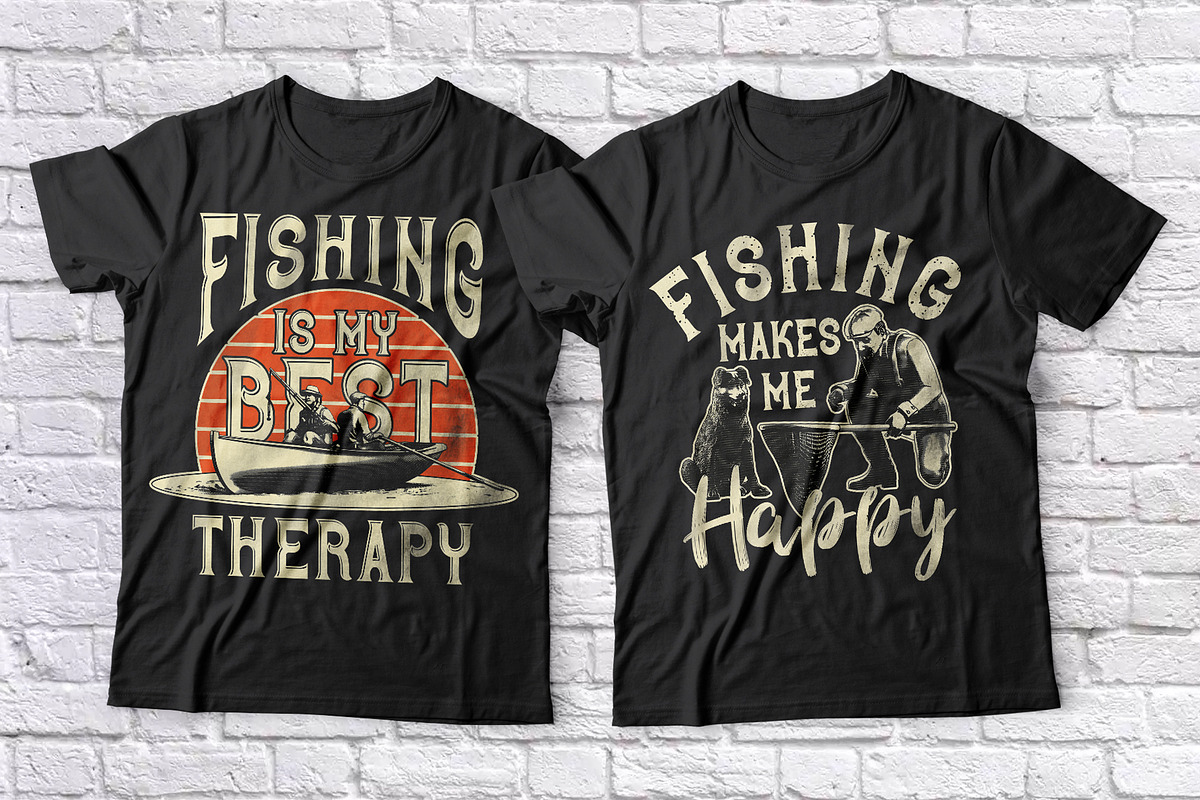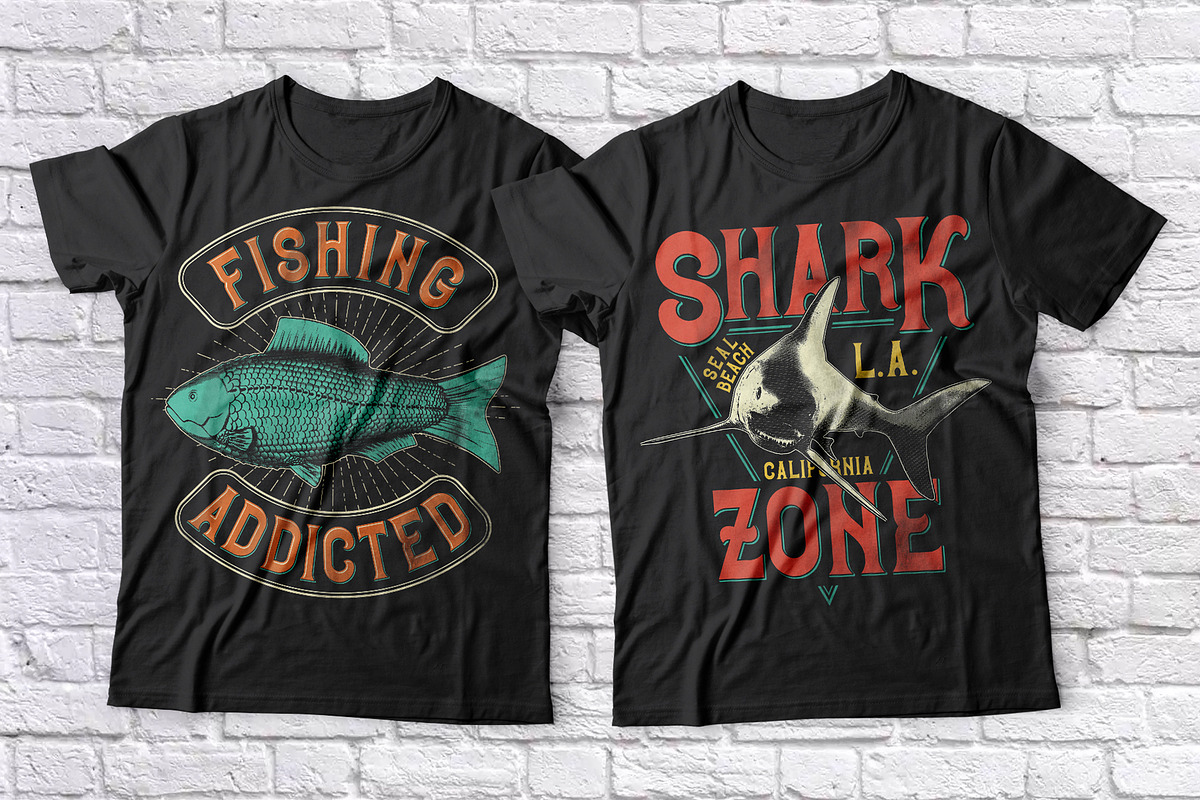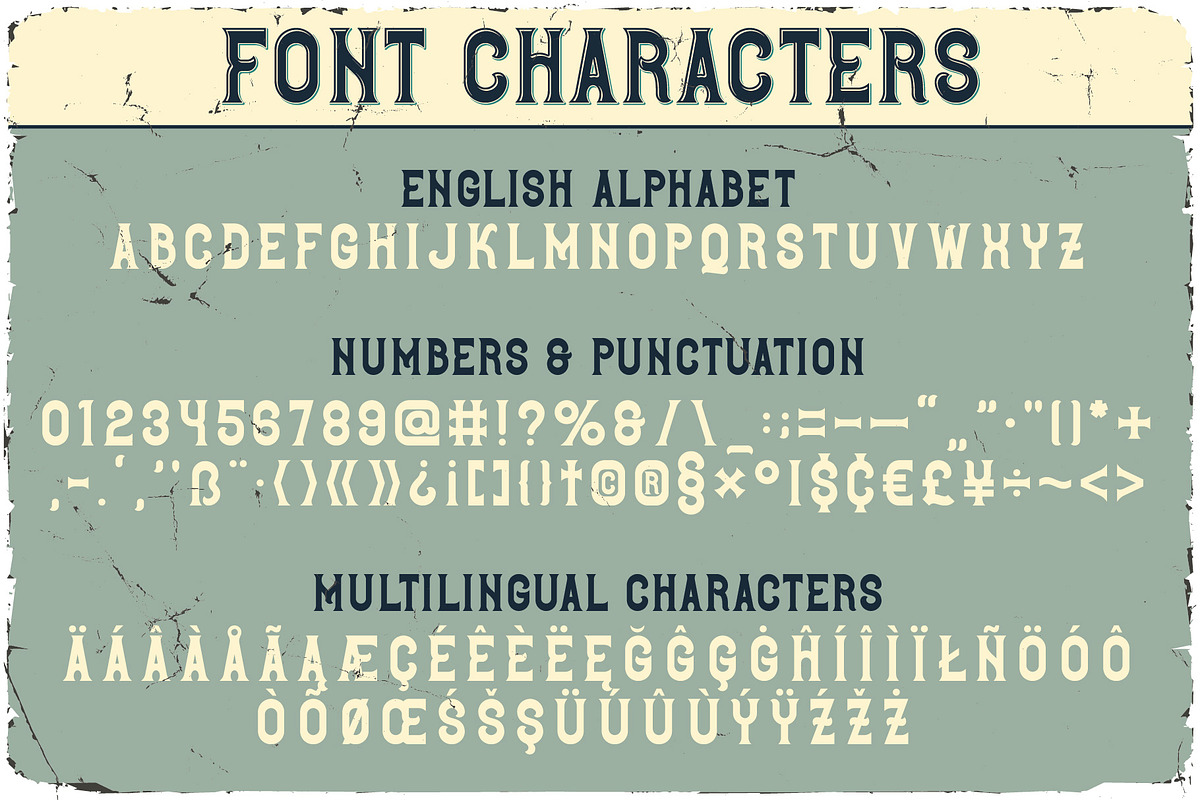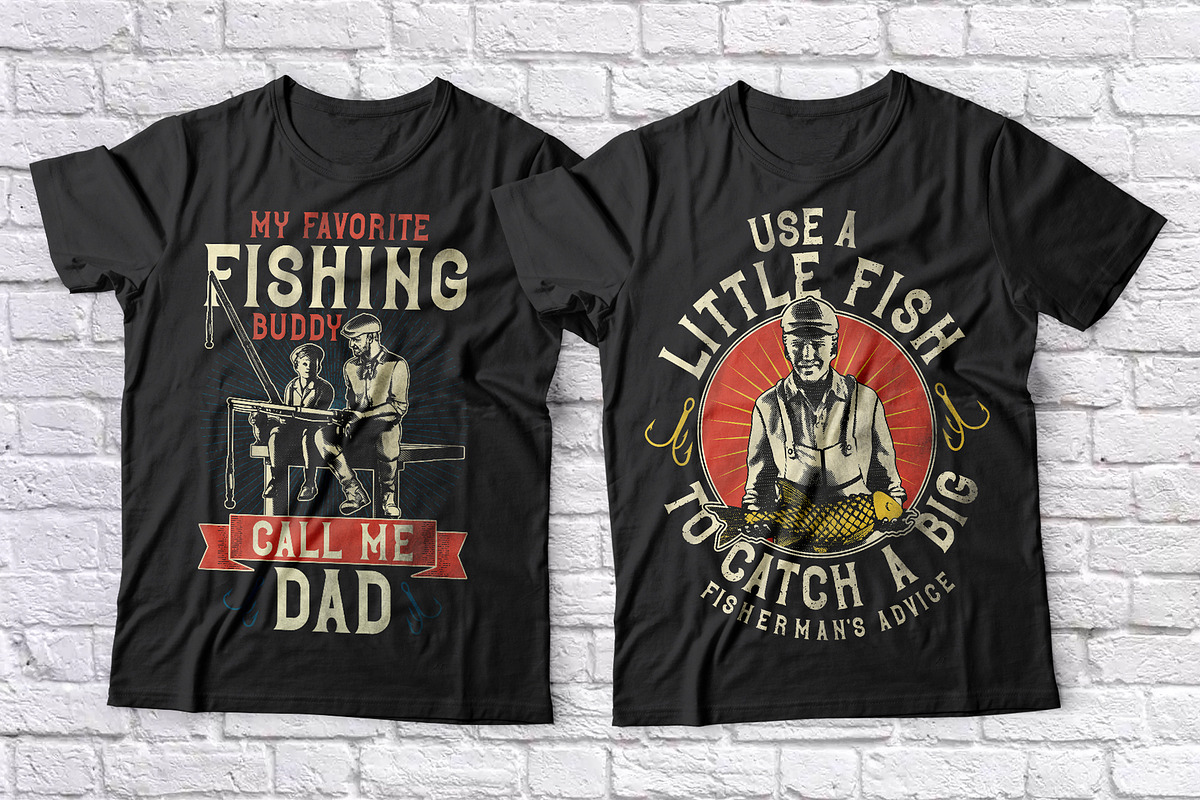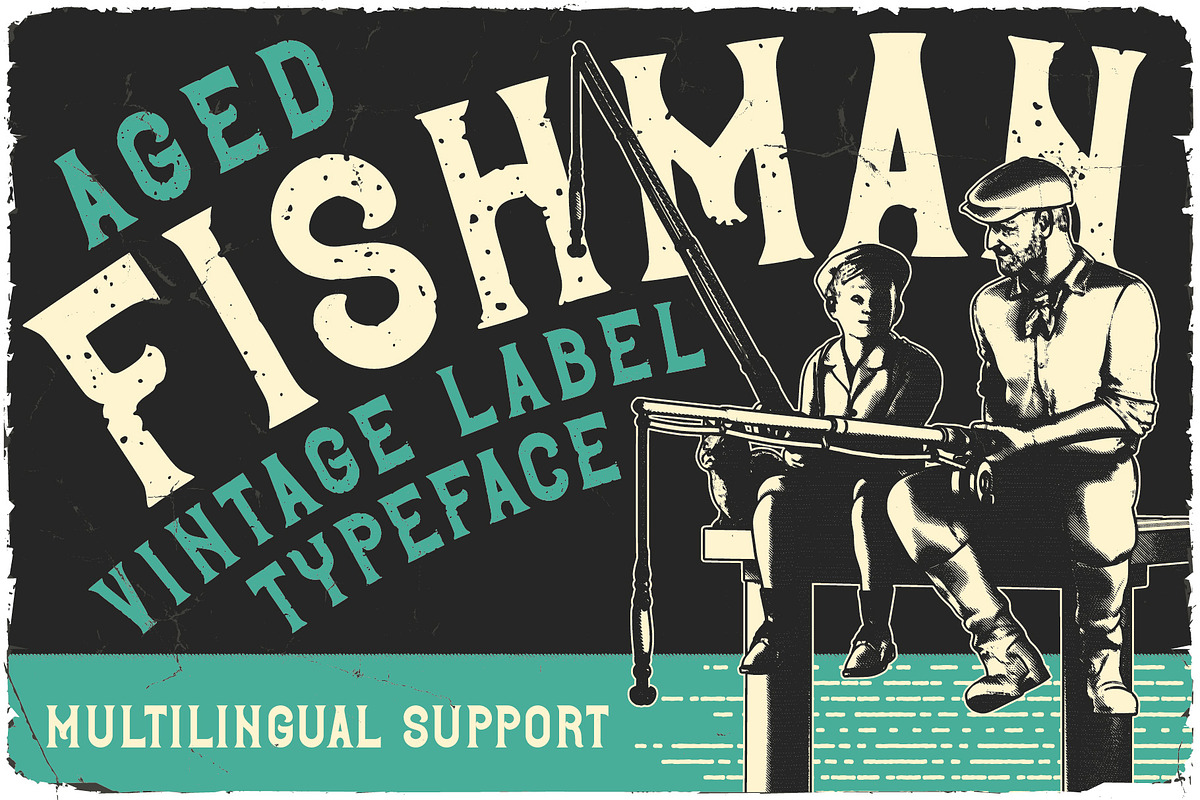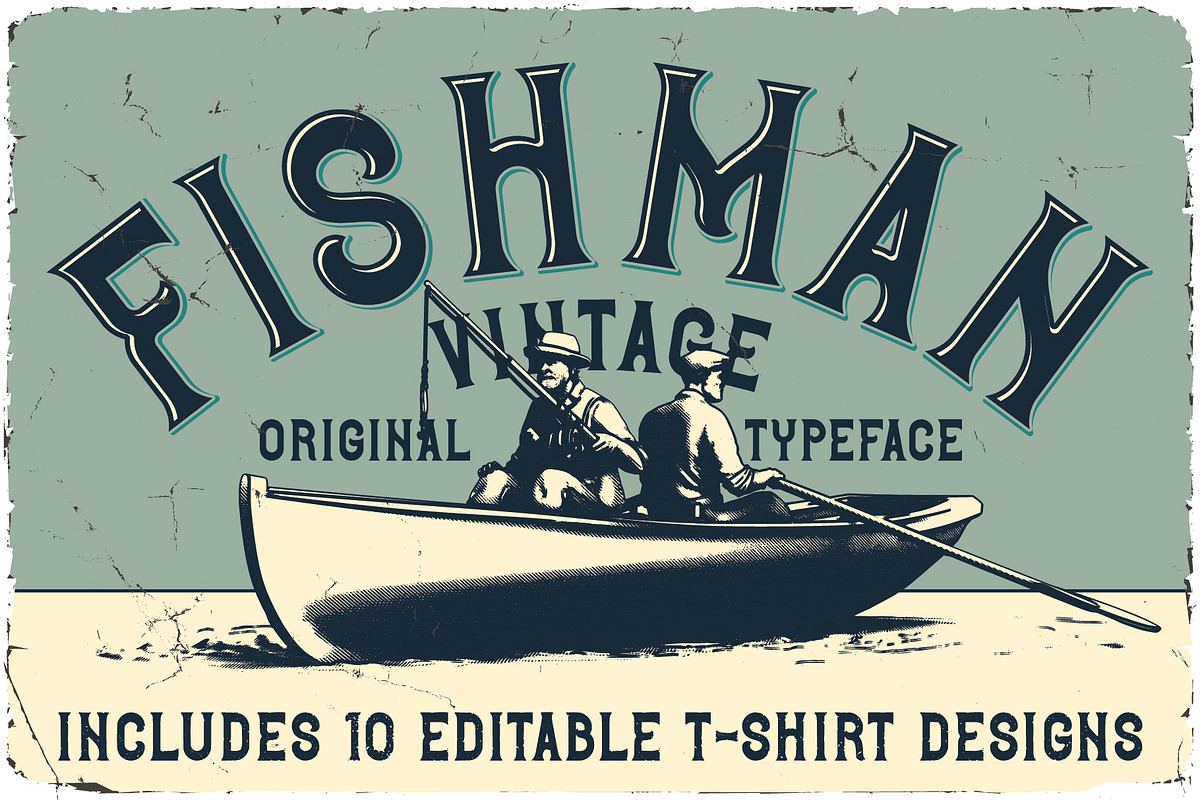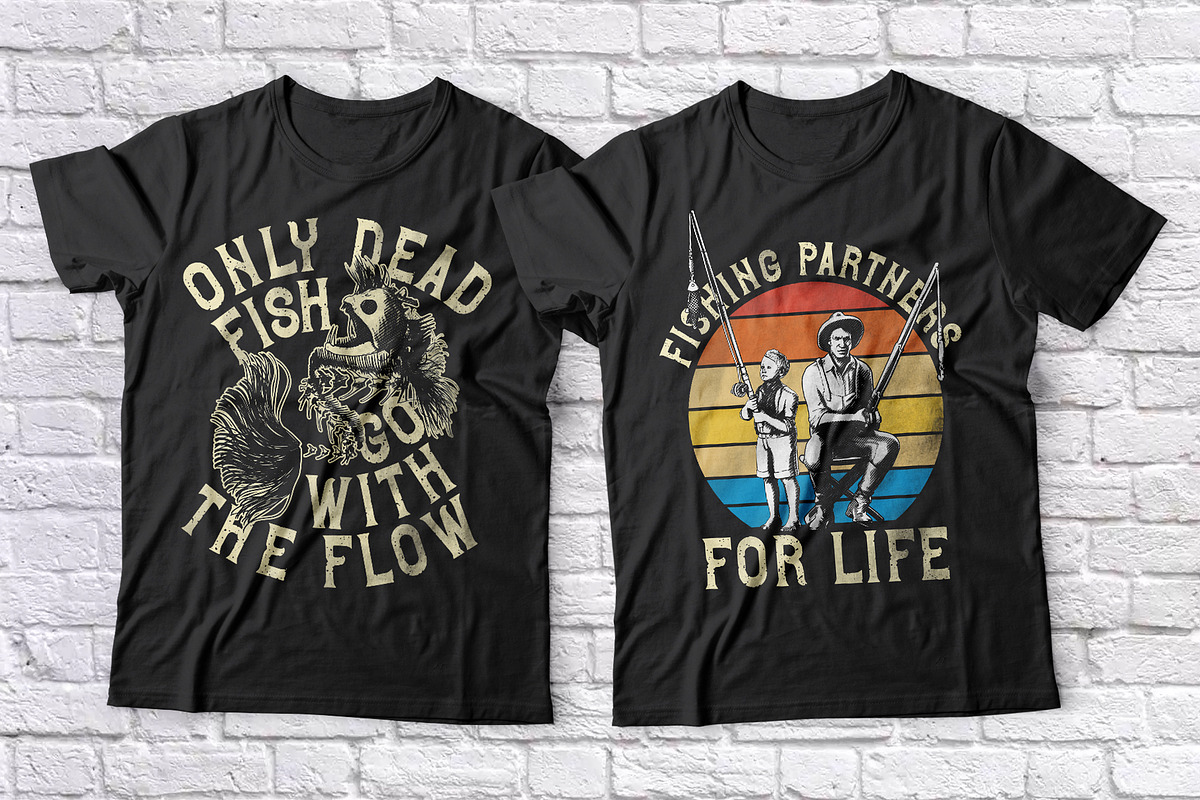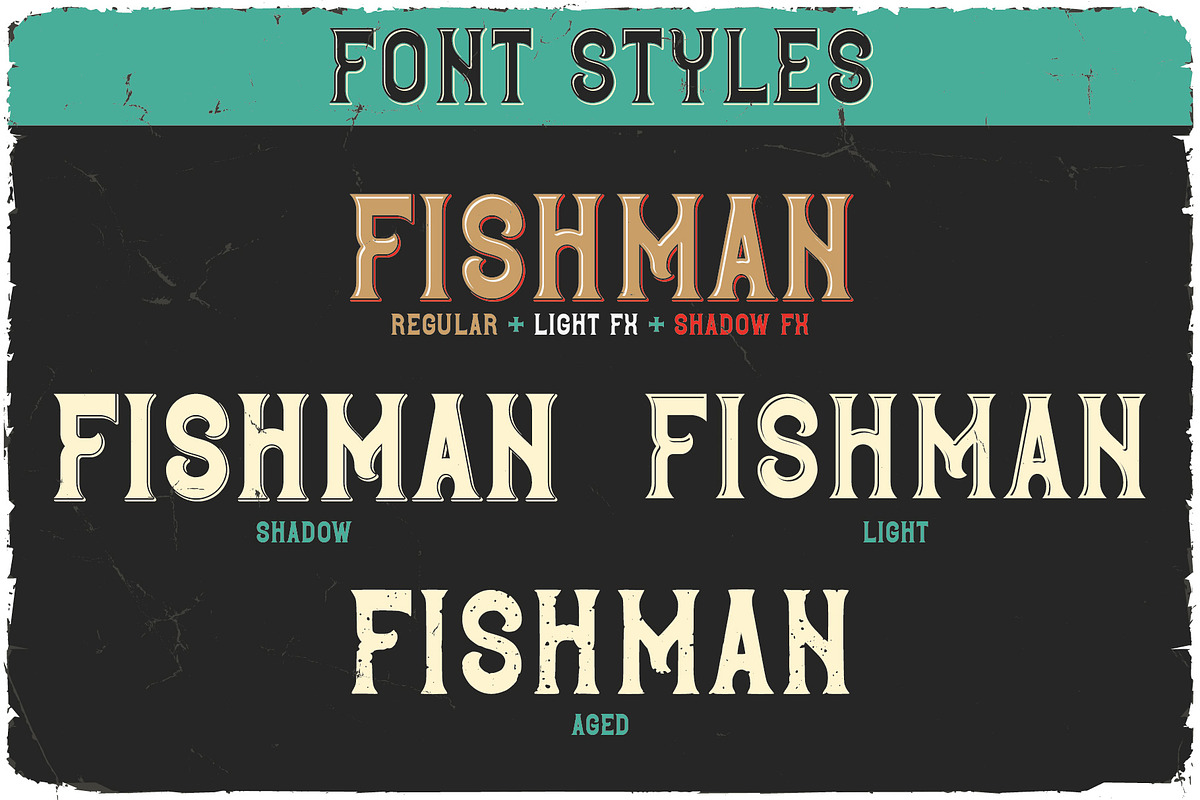
Fishman Vintage Font
Introducing vintage label font named Fishman. This font has a multilungual characters support (check out all available characters on previews). The font family has six styles: Regular, Shadow, Light, Shadow FX, Light FX, Aged. This font will look good on any vintage styled designs like a poster, T-shirt, label, logo, etc.
- A lot of additional symbols and multilingual support.